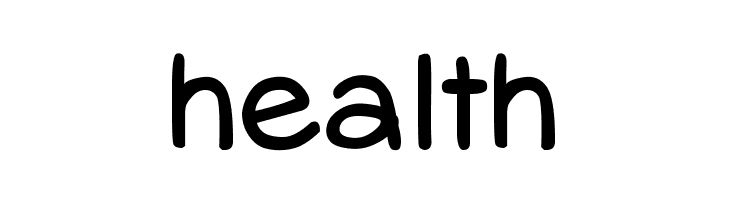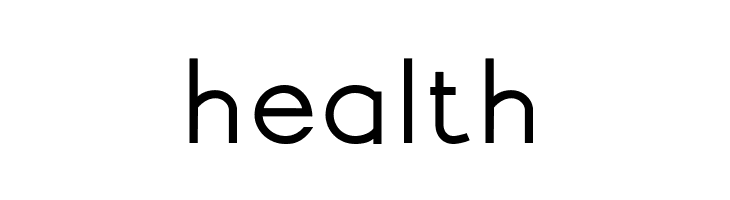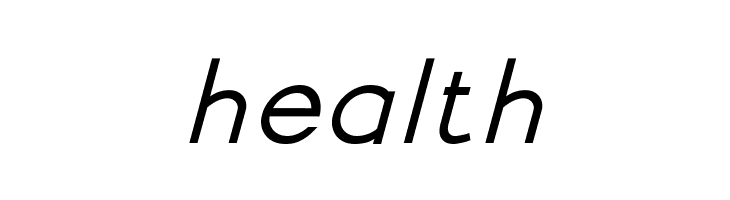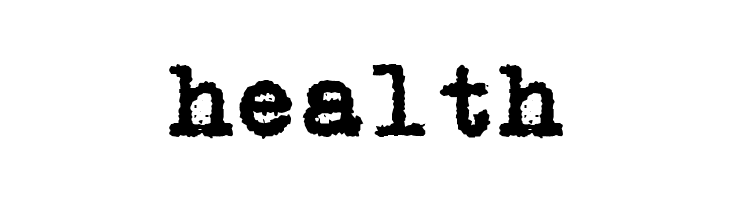
Extendo Italic Font
A dynamic, italic script font with flowing, connected characters.
Doriel Font
A classic serif font with bold strokes and high contrast, exuding elegance and authority.
Philosopher Bold Font
A bold serif font with a classic and authoritative style.
Leaves And Ground Font
A bold, playful handwritten font with smooth curves and a lively appearance.
Checkpundo Regular Font
A modern, geometric font with angular uppercase and rounded lowercase letters.
KG No Matter What Regular Font
A playful, casual handwritten font with fluid, connected letterforms.
KG What Does the Fox Say Font
A playful, handwritten font with a casual and friendly appearance.
Calcutta Italic Font
A modern italic font with clean lines and a sleek appearance.
KG By the Grace of God Font
A bold, distressed font with a grunge aesthetic and high contrast.
Calcutta Medium Italic Font
A modern sans-serif font with a slight italic slant and medium weight.
Avrile Sans Condensed Thin Font
A modern, thin, and condensed sans-serif font with clean lines.
Signoria Bold Italic Font
A bold and italic modern font with a sleek, dynamic style.
Signoria Italic Font
A sleek, modern italic font with smooth curves and elegant slant.
Calcutta Light Italic Font
A sleek, modern, light italic sans-serif font with medium contrast.
Quiche Font
A modern, elegant script font with flowing, cursive characters.
CATAltenglisch Font
A classic blackletter font with intricate, ornate letterforms and decorative flourishes.
Zinc Oblique Font
A bold, fragmented font with a dynamic and abstract style.
WoodWorks Plain Font
A decorative, hand-drawn font with a wood grain texture and playful style.
Philosopher Italic Font
An elegant and refined italic font with smooth, flowing letterforms.